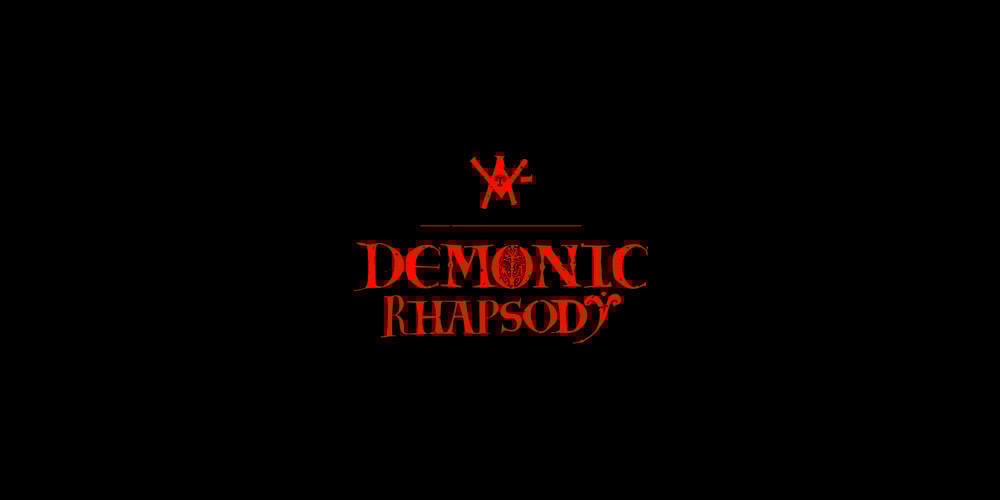
Demonic Rhapsody Font Family was designed by Ali Cagan Uzman and published by Hun Liszt. Demonic Rhapsody contains 1 styles and family package options. Demonic Rhapsody is a unique typeface inspired by Codex Gigas, featuring Gothic, handwritten glyphs. Perfect for adding mystique to projects such as book covers, album artwork, or unique branding. It’s part of the Demonic Rhapsody NFT project, symbolizing marginalized voices. A narrative tool, it pairs well with minimalist typefaces for contrast or textured fonts for an immersive experience.